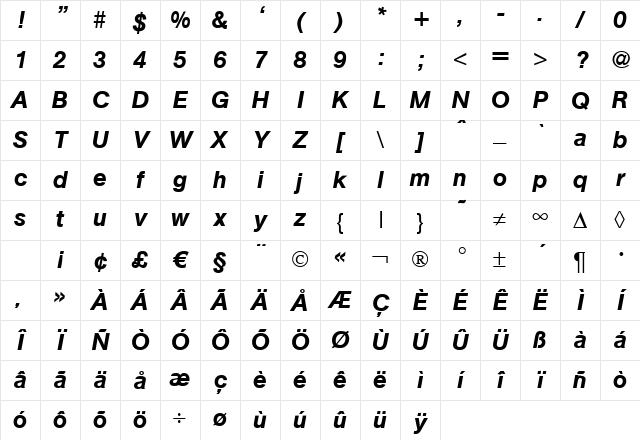
Complete AtkinsMedium Italic glyph index. Displaying only characters natively supported by AtkinsMedium Italic font.
AtkinsMedium is a composed and adaptable typeface that performs quietly and consistently across a wide range of design contexts. The slanted form adds forward momentum and visual energy.